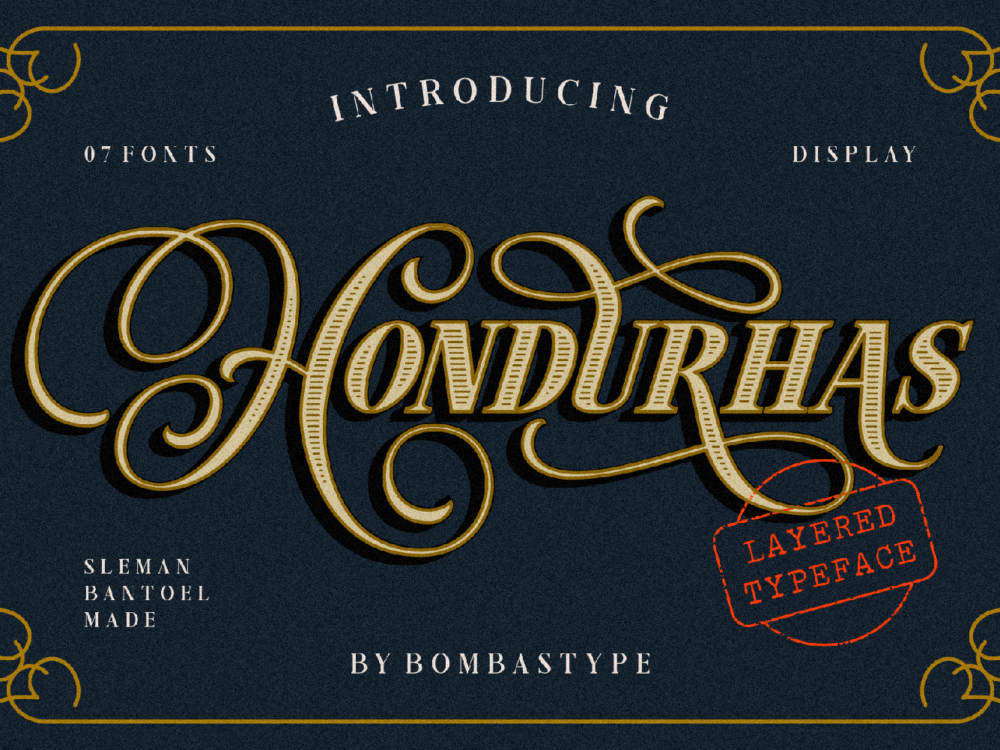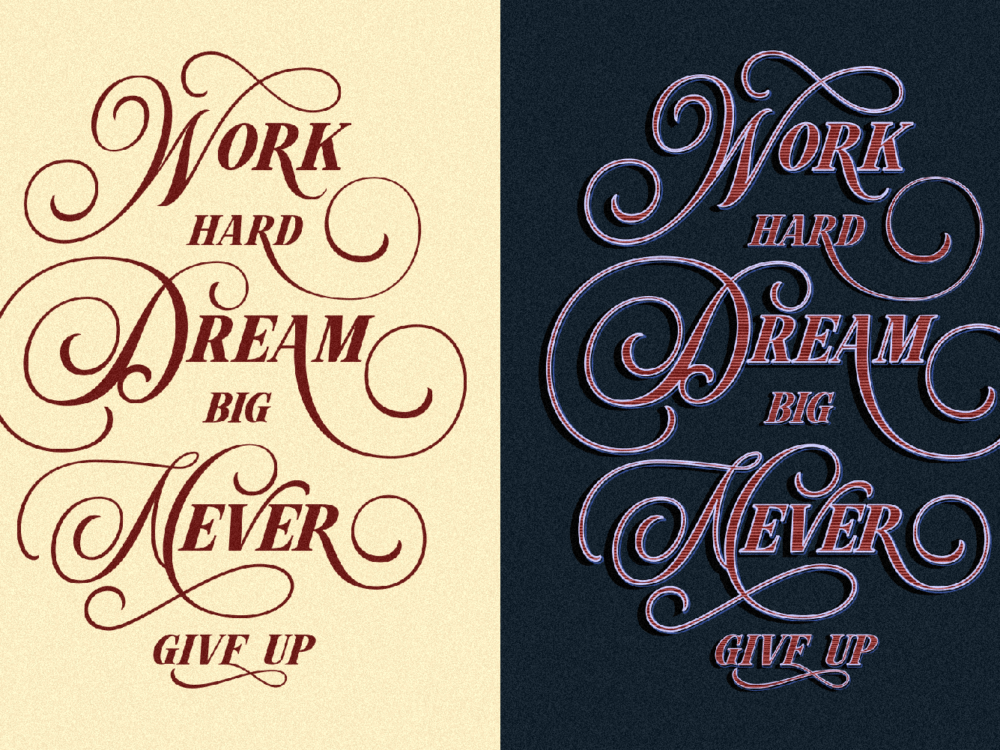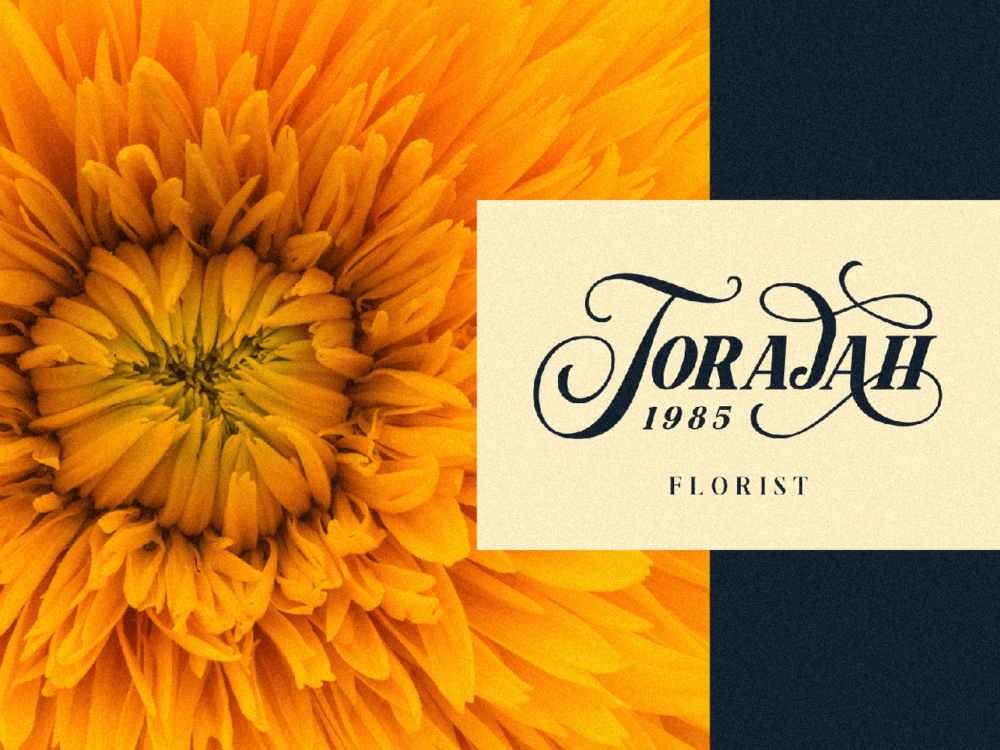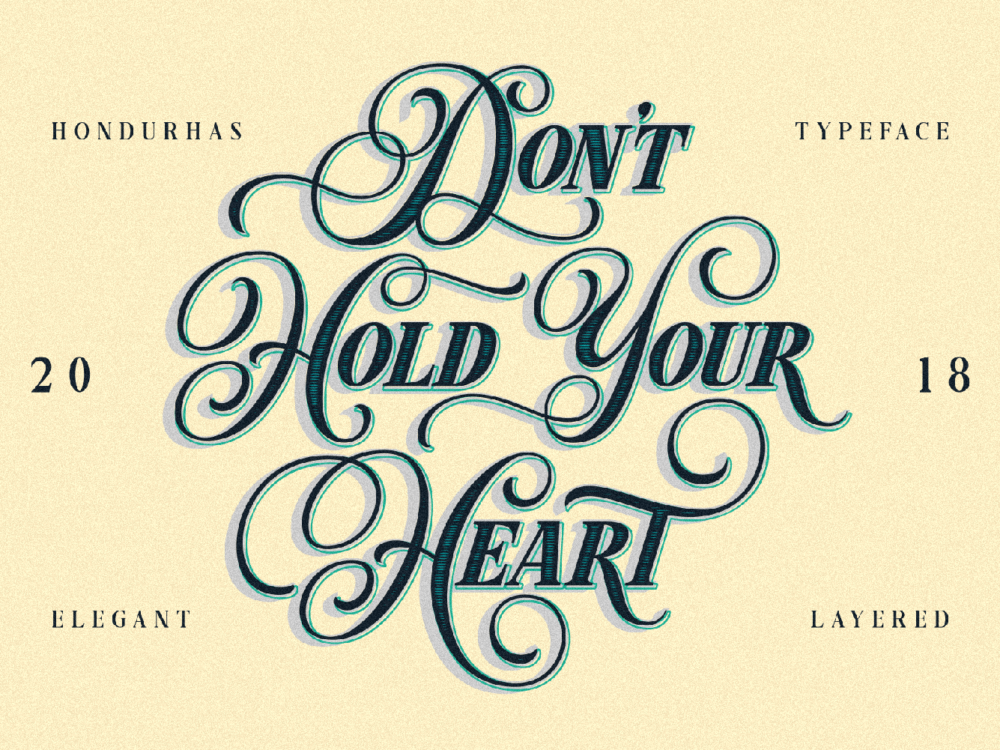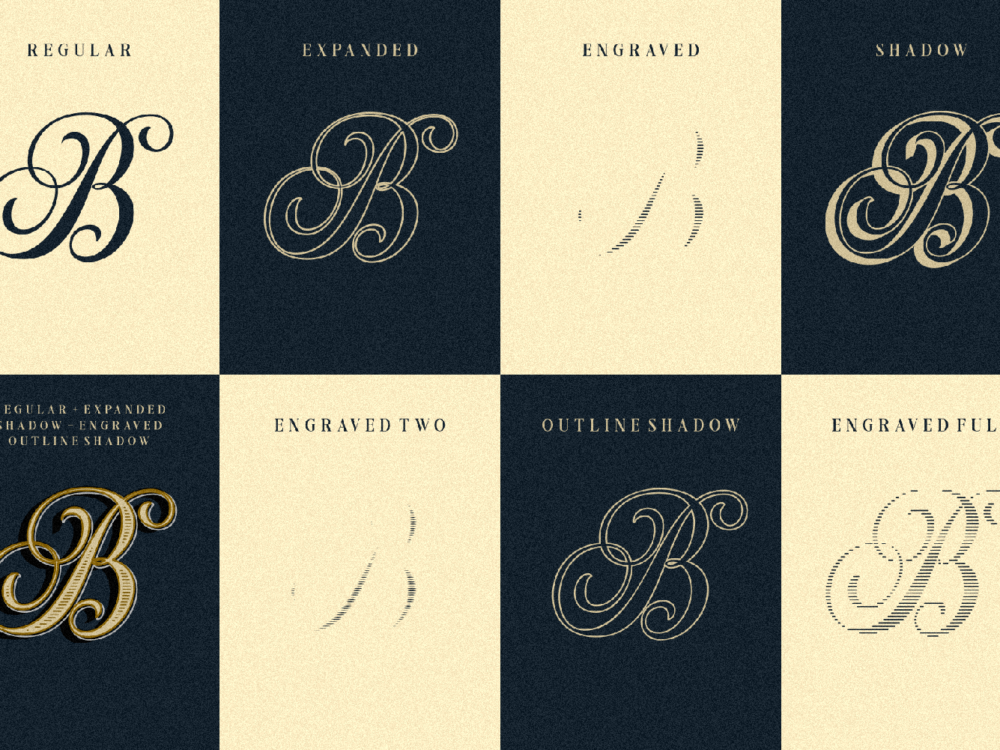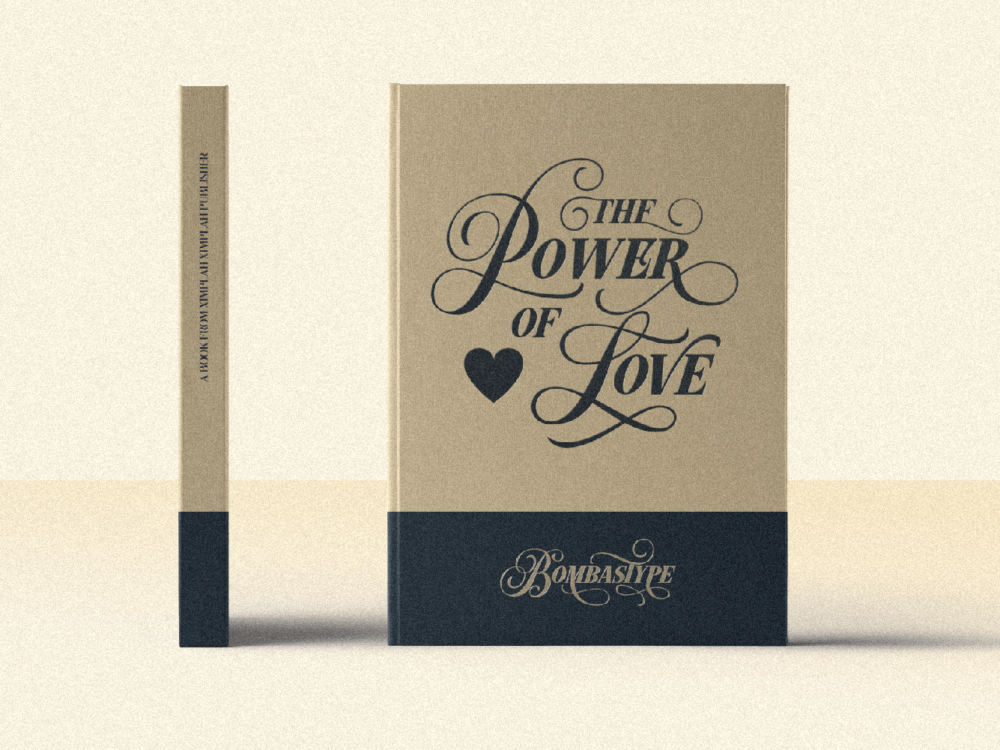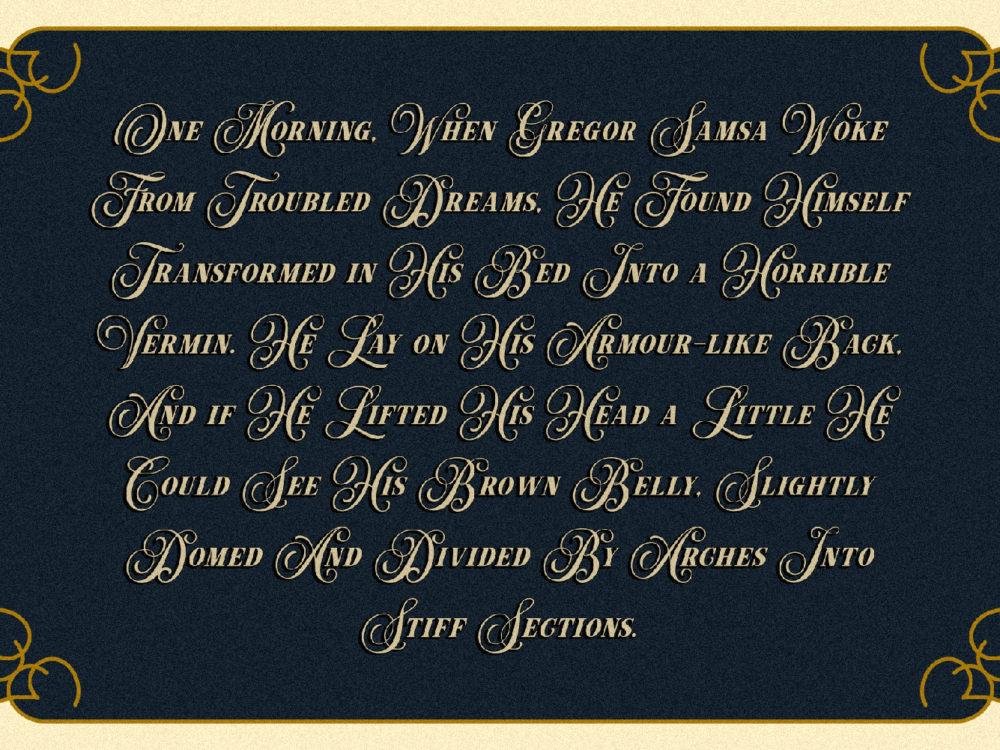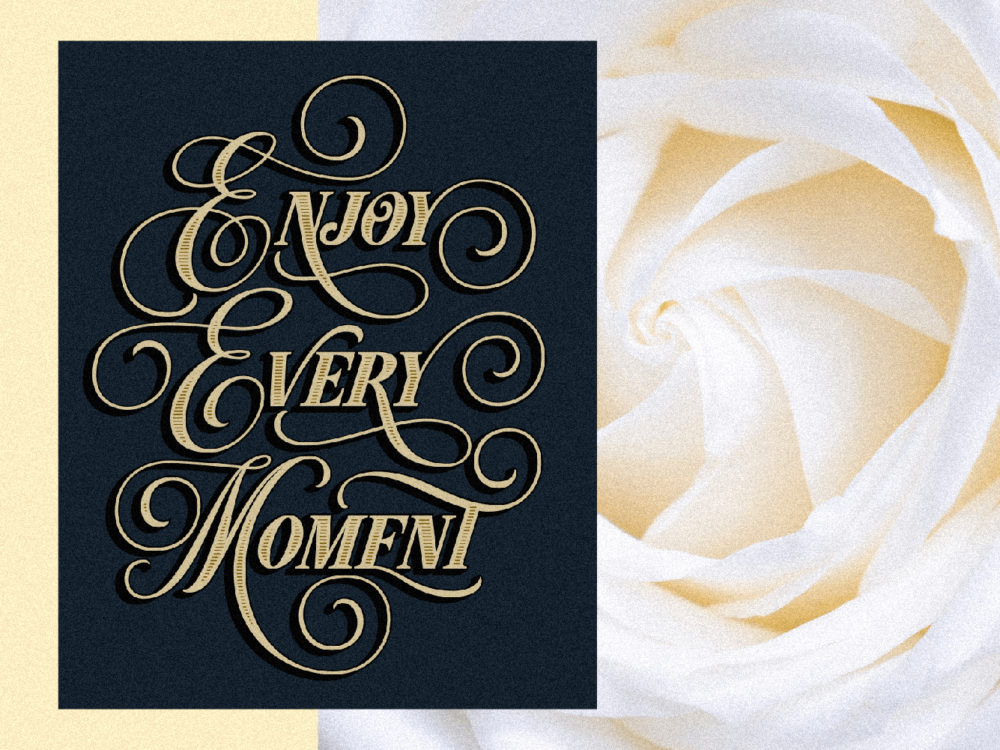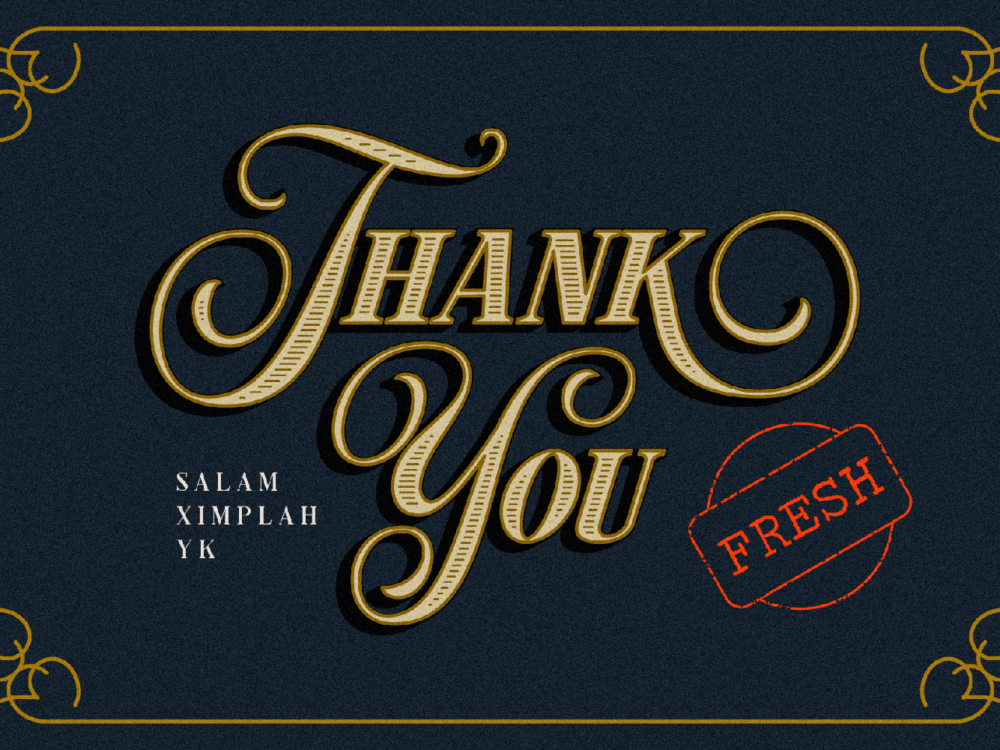
Hondurhas Free Font
Free Retro Font
Hondurhas Free Font is an interesting handwritten font that has a vintage style. The font features calligraphic letterforms and is perfect for creating design projects in an old-fashioned retro style. If you like it don’t forget to check out the full version.